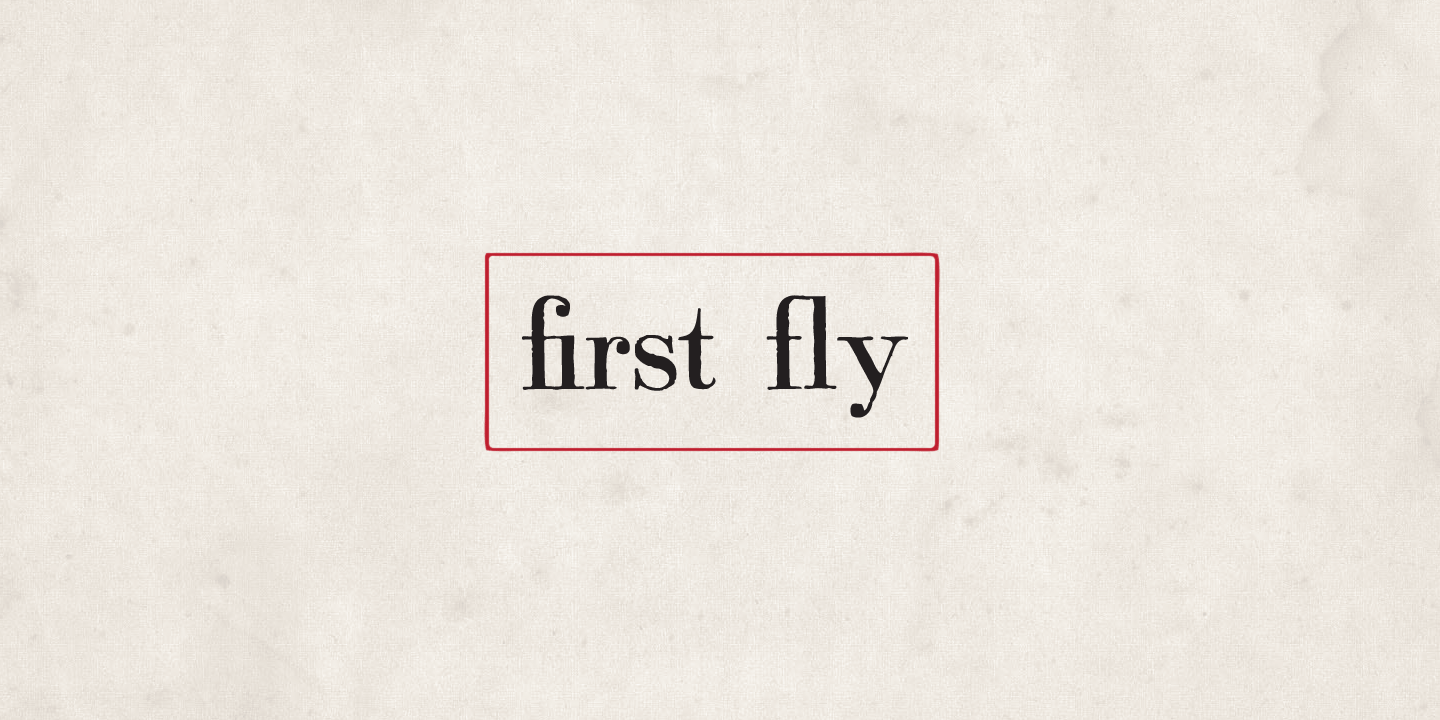
Modena Printed Font is perfect for Italian restaurant branding, artisan print shop materials, vintage letterpress designs, traditional printing house logos, heritage publishing projects, classic typography workshops, authentic craft brewery labels, and old-world bakery signage. This distinguished typeface excels in luxury fashion heritage brands, traditional wine packaging, historical document reproductions, and sophisticated European-inspired marketing materials.
What makes Modena Printed Font exciting is its authentic craftsmanship and traditional printing heritage that captures the artisanal beauty of Italian typography and old-world printing excellence. The font features hand-pressed letterforms, vintage ink textures, and craftsman-quality character that evokes the skilled tradition of European printing masters and the timeless appeal of artisanal craftsmanship. Its authentic charm and heritage sophistication make every word feel lovingly crafted by master printers.
Modena Printed Font family includes various artisanal styles: Regular, Bold, Light, Distressed, Clean, and Vintage variations. Each style maintains the font's signature printed character while providing designers with diverse options for creating heritage brand identities and traditional typography that resonates with audiences appreciating authentic craftsmanship and European printing traditions.
Heritage brands choose Modena Printed Font Free Download for projects requiring traditional authenticity and artisanal appeal. The font's versatility makes it suitable for both modern applications with vintage aesthetics and authentic period reproductions, ensuring distinguished results across craft packaging, heritage websites, and traditional European celebration designs.